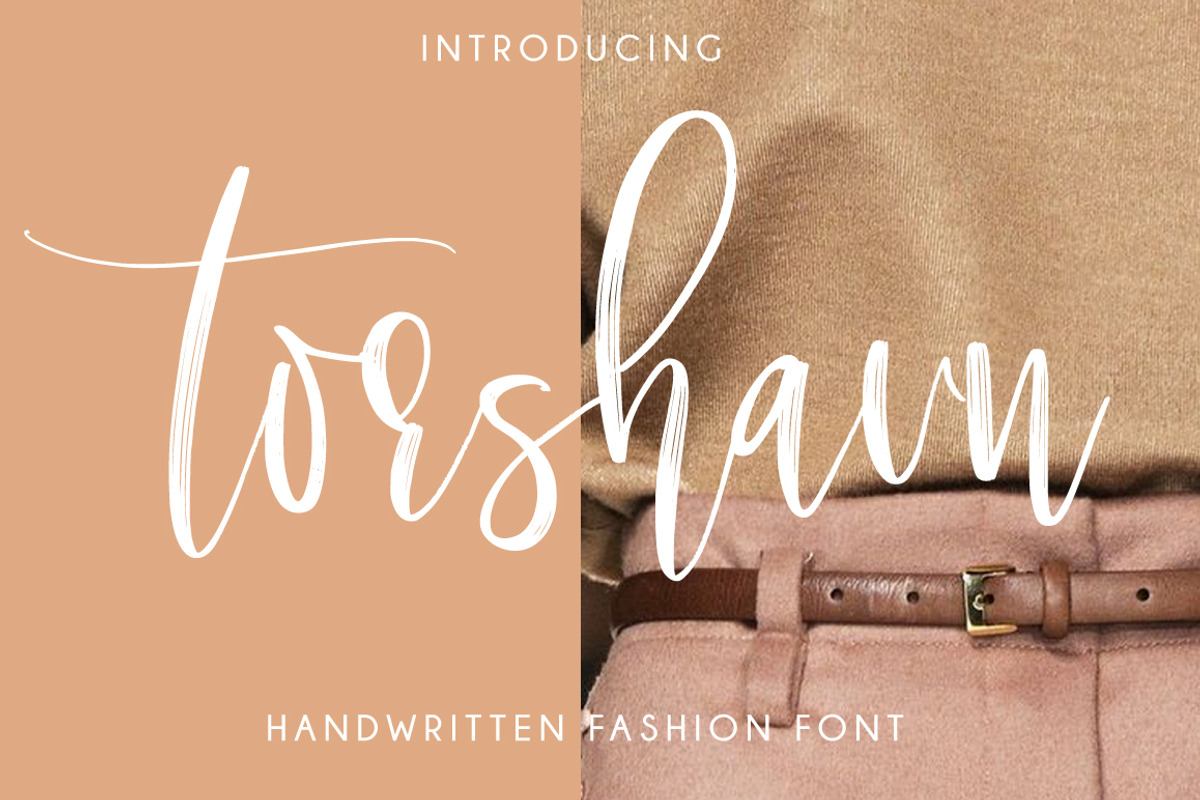
Torshavn Script Free Download
Torshavn Script Font Free Download
Torshavn Script Font Free Download is a beautiful, elegant script typeface designed to bring a personal and refined touch to your designs. With its smooth, flowing letterforms and subtle flourishes, this font is perfect for wedding invitations, branding, logos, greeting cards, and any project that requires a graceful, handwritten style.
Using the Torshavn Script Font Free Download adds sophistication and charm to your typography. Whether you're creating a luxurious brand identity, designing an elegant invitation, or crafting an artistic social media post, this font brings a sense of personal elegance and warmth to your work.